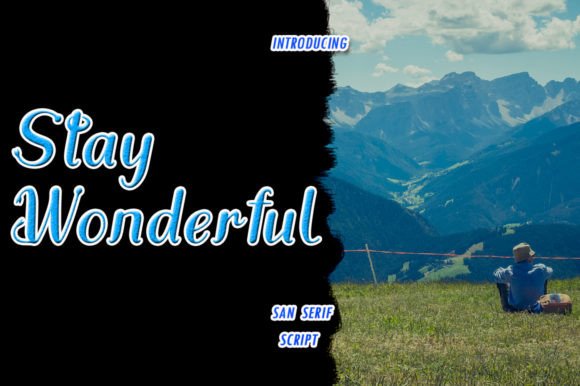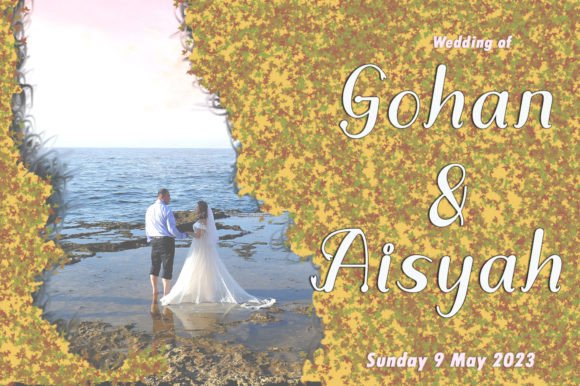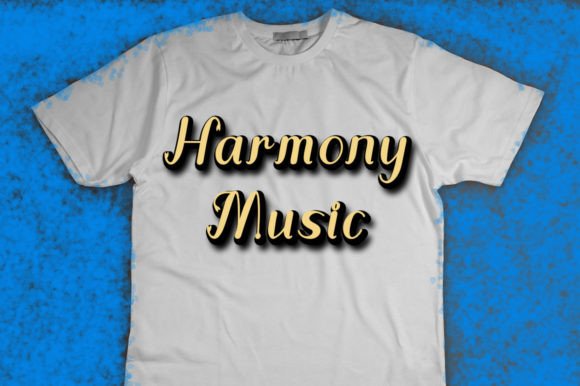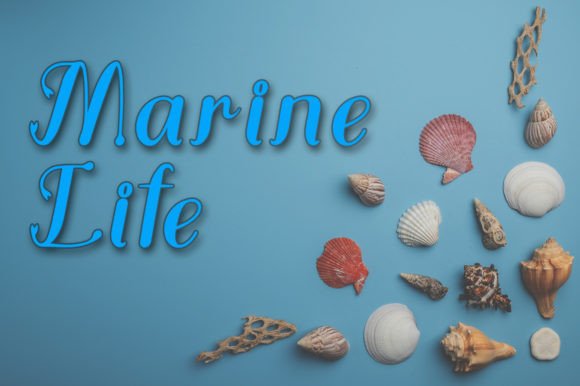
About Stay Wonderful
Stay Wonderful is an elegant and dainty handwritten font that features sweet and delicate swashes. This original look will appeal to a wide range of crafty ideas, from letterheads and titles, to stationery.